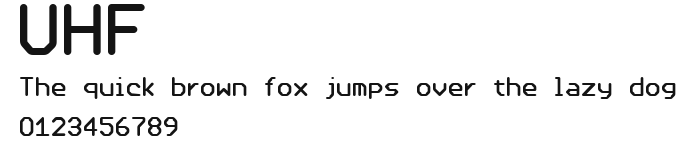
UHF.ttf is a modern, elegant sans-serif font designed for ultimate readability and visual harmony. Perfect for branding, headlines, web design, and print materials.